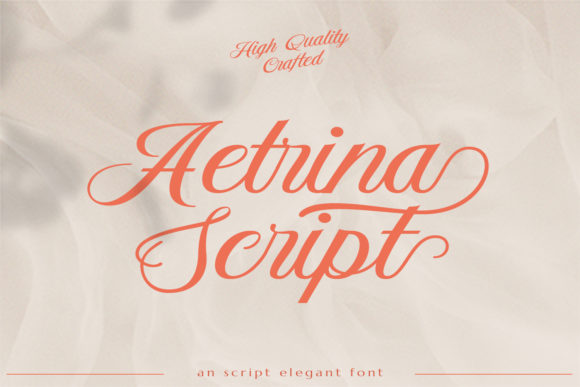
The Timeless Elegance of Aetrina Script Font
As a designer, I’ve had my fair share of font frustrations. I recall working on a wedding invitation project, scrolling through font after font, searching for that perfect handwritten touch. And then, I stumbled upon Aetrina Script. It was love at first sight! 💕 In this article, I’ll share my experience with this beautiful font, its features, and how to make the most of it in your designs.
A Personal Review of Aetrina Script
- ✨ Delicate and elegant strokes that add a touch of sophistication to any design
- ✅ Timeless appeal that suits various design projects, from wedding invitations to business cards
- 💫 Highly legible, even at smaller font sizes
- 🎨 Versatile and works well with different colors and textures
While Aetrina Script is an amazing font, there are a few things to keep in mind:
- ⚠️ Some letters, like the lowercase “k” and “q”, have a slightly unique design that might take getting used to
- 🤔 Not ideal for body text or long paragraphs, as it’s best suited for headlines and titles
How to Use Aetrina Script in Your Designs
- Experiment with OpenType features, such as ligatures and stylistic alternates, to add more flair to your design
- Use the font’s built-in ligatures and stylistic alternates to add a touch of elegance to your document
Aetrina Script was designed with inspiration from classic calligraphy and handwritten scripts. The creator aimed to craft a font that exudes elegance and sophistication, perfect for designs that require a personal touch. While the true story behind Aetrina Script’s creation might be unknown, its beauty and versatility have captured the hearts of designers worldwide.
| What makes Aetrina Script suitable for wedding designs? | Aetrina Script’s delicate and elegant strokes make it perfect for wedding invitations, save-the-dates, and other wedding-related designs. |
| Is Aetrina Script difficult to read? | No, Aetrina Script is highly legible, even at smaller font sizes, making it suitable for various design projects. |
| Can I use Aetrina Script in my branding design? | Absolutely! Aetrina Script’s timeless appeal and elegance make it a great fit for logos, business cards, and other branding materials. |